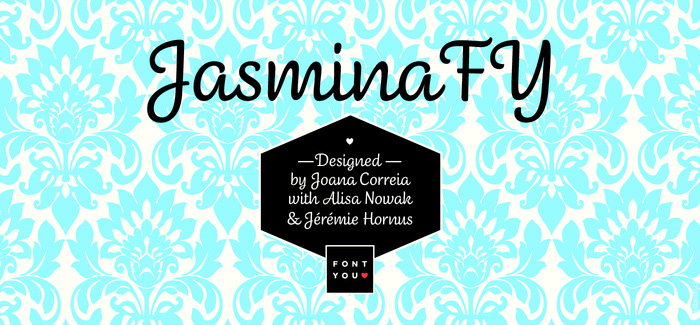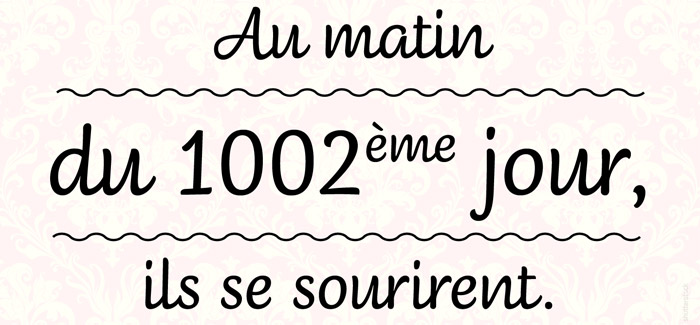
Jasmina FY font
Jasmina FY font, designed by Joana Correia with Alisa Novak and Jeremie Hornus (Fontyou foundry), is a beautiful low-contrast script font. Its fluid and feminine shapes bring an elegant structure to the texts and lots of personality in poster size. Jasmina FY will certainly find its pleasure in packaging, wedding invitations, headlines, posters and logo design. It offers plenty of OpenType features – standard ligatures, ordinals, fractions, etc., to assist you in your design work.
Joana Correia took 2nd place at the 2010 Granshan Awards in the Greek text typeface category with her Artigo font.